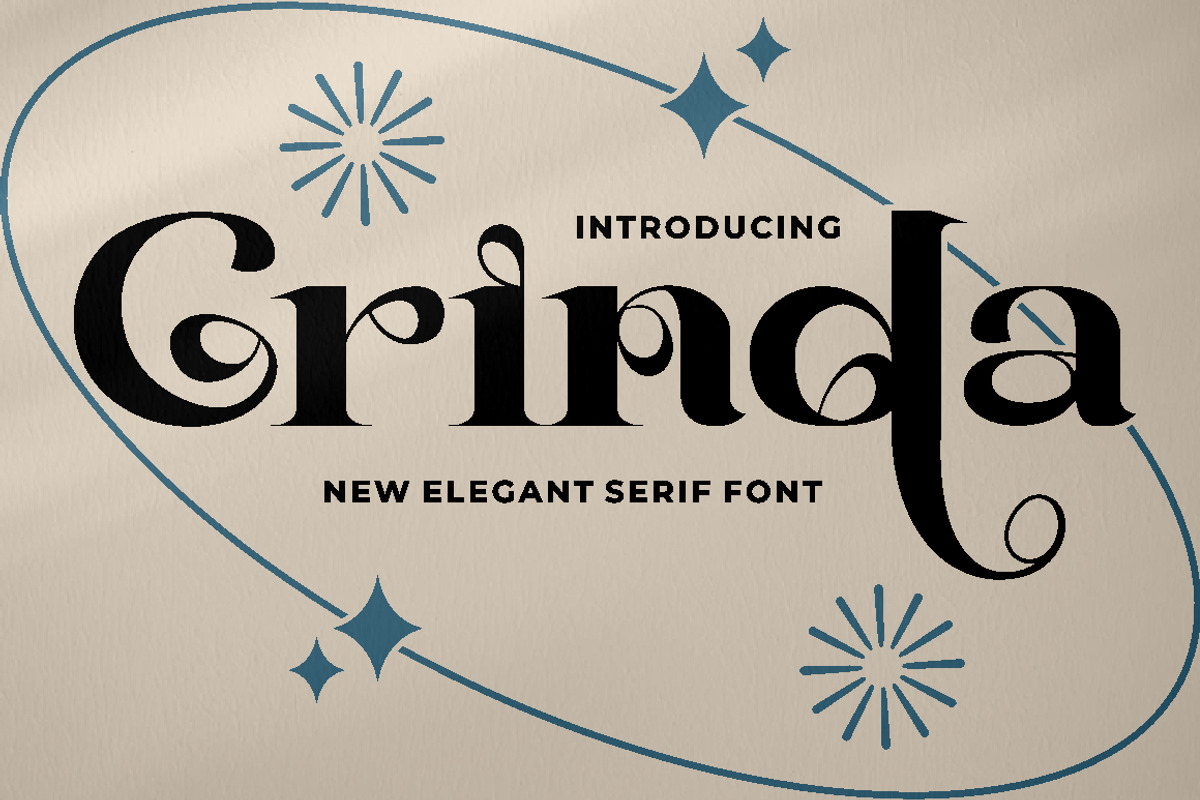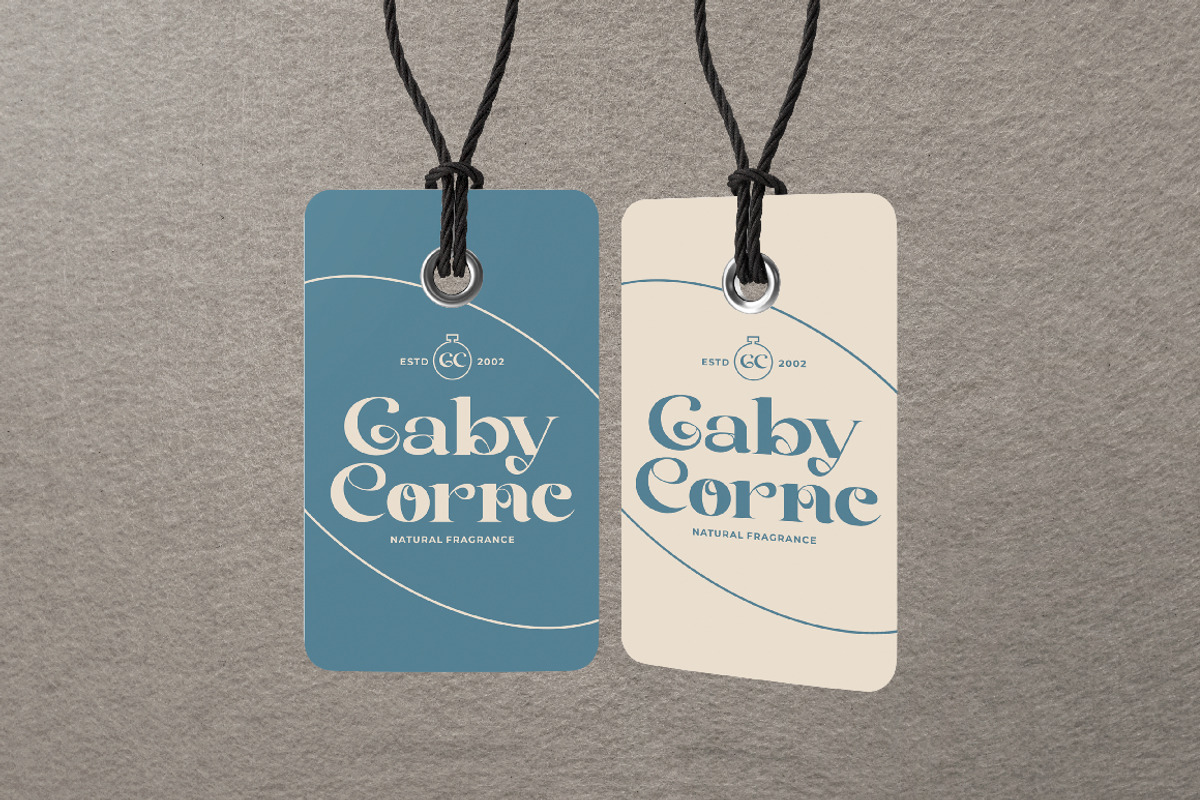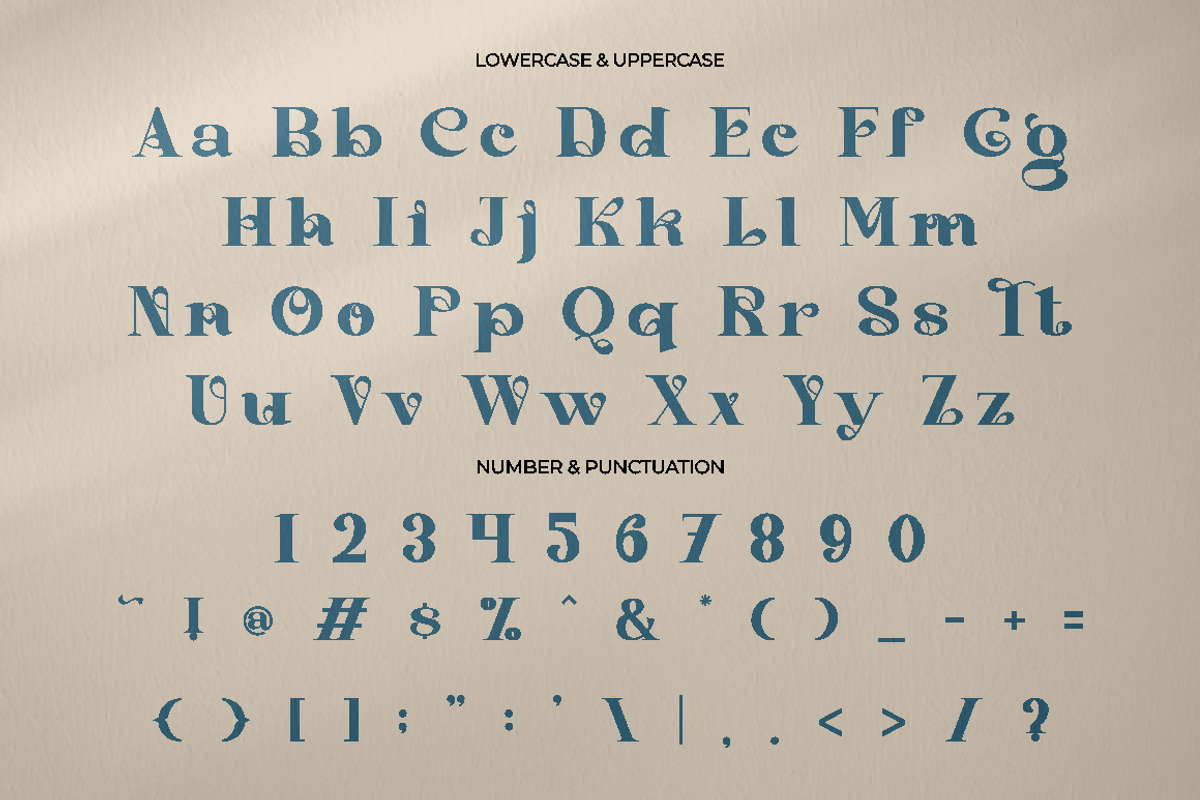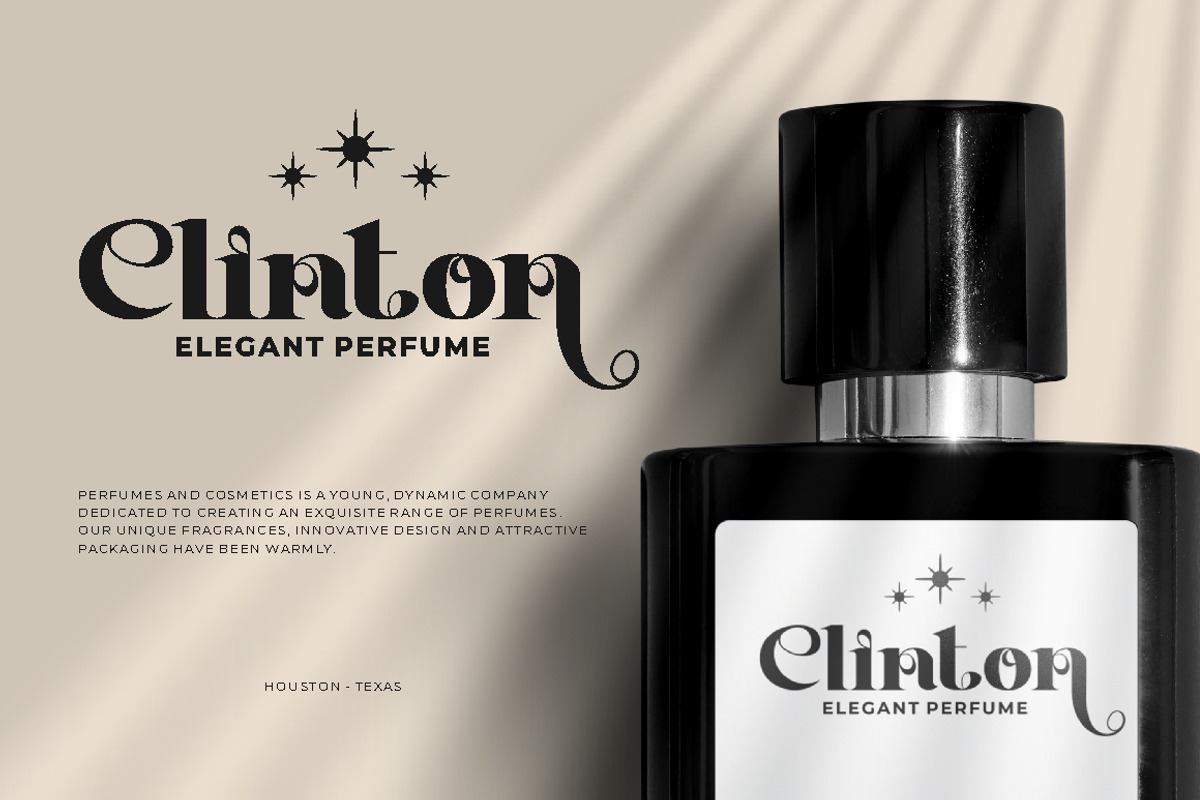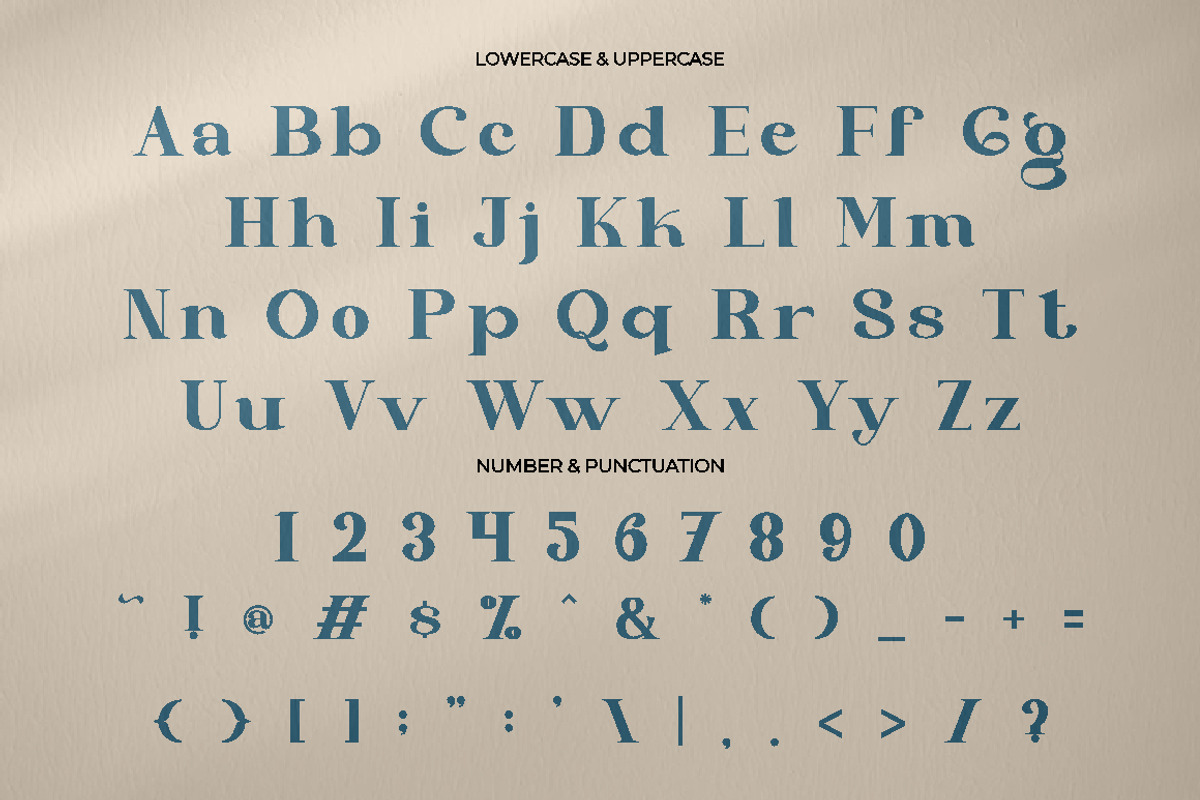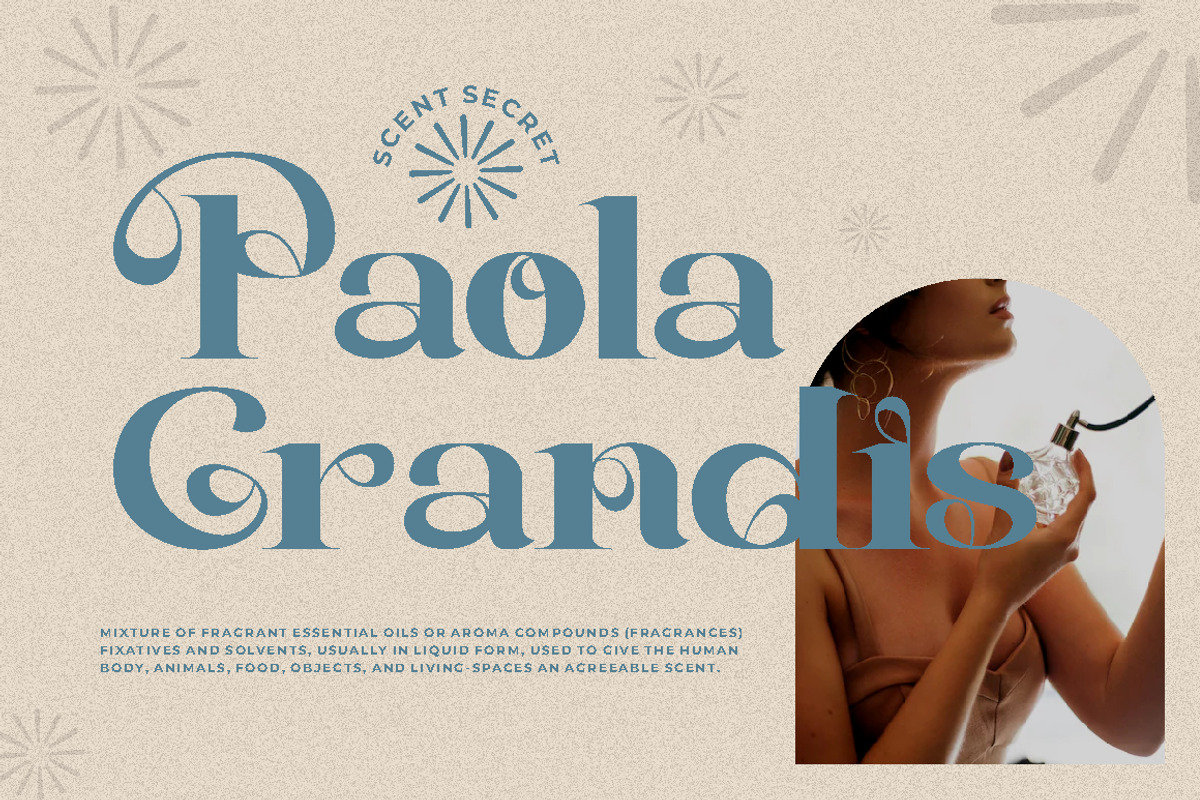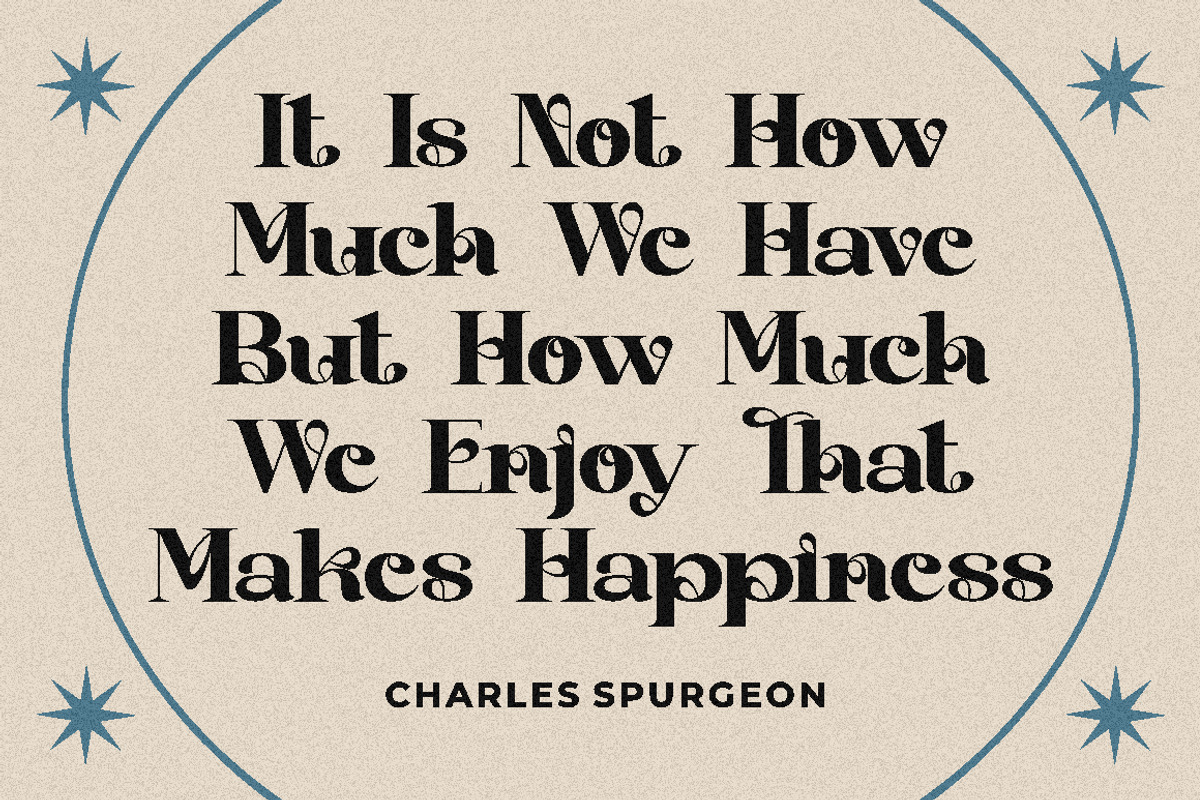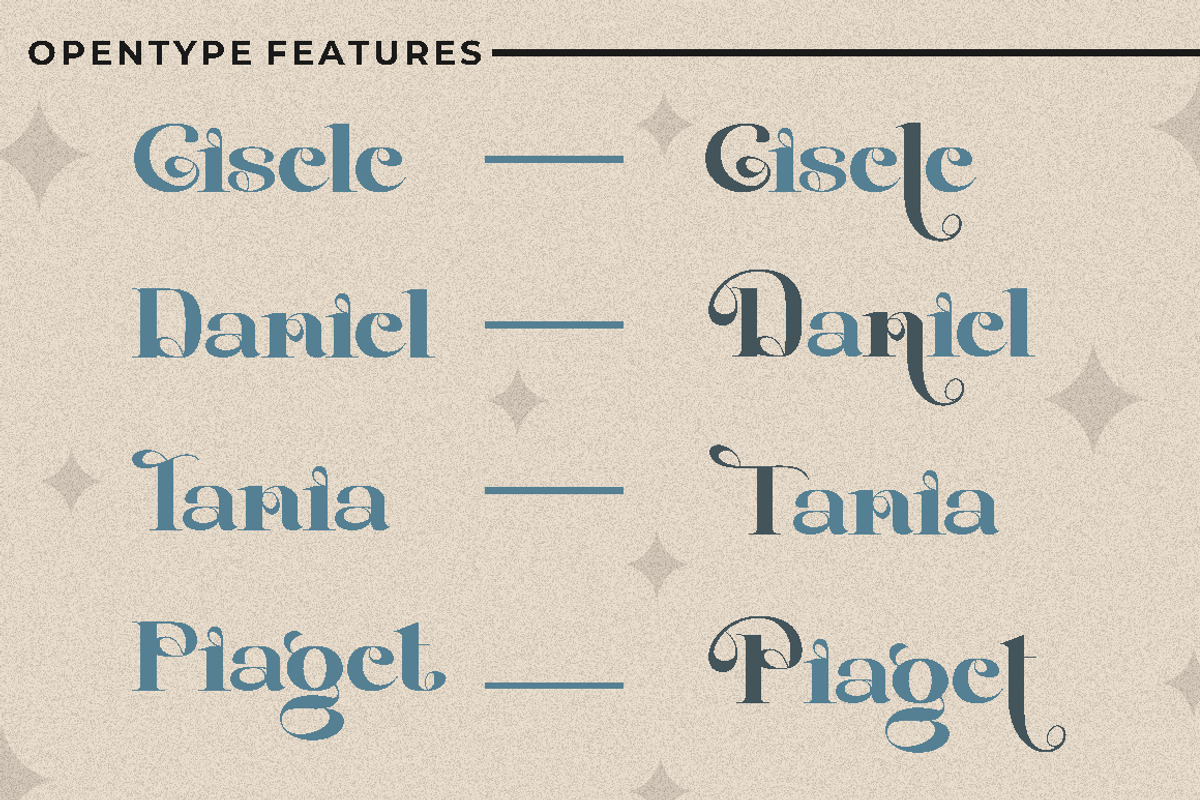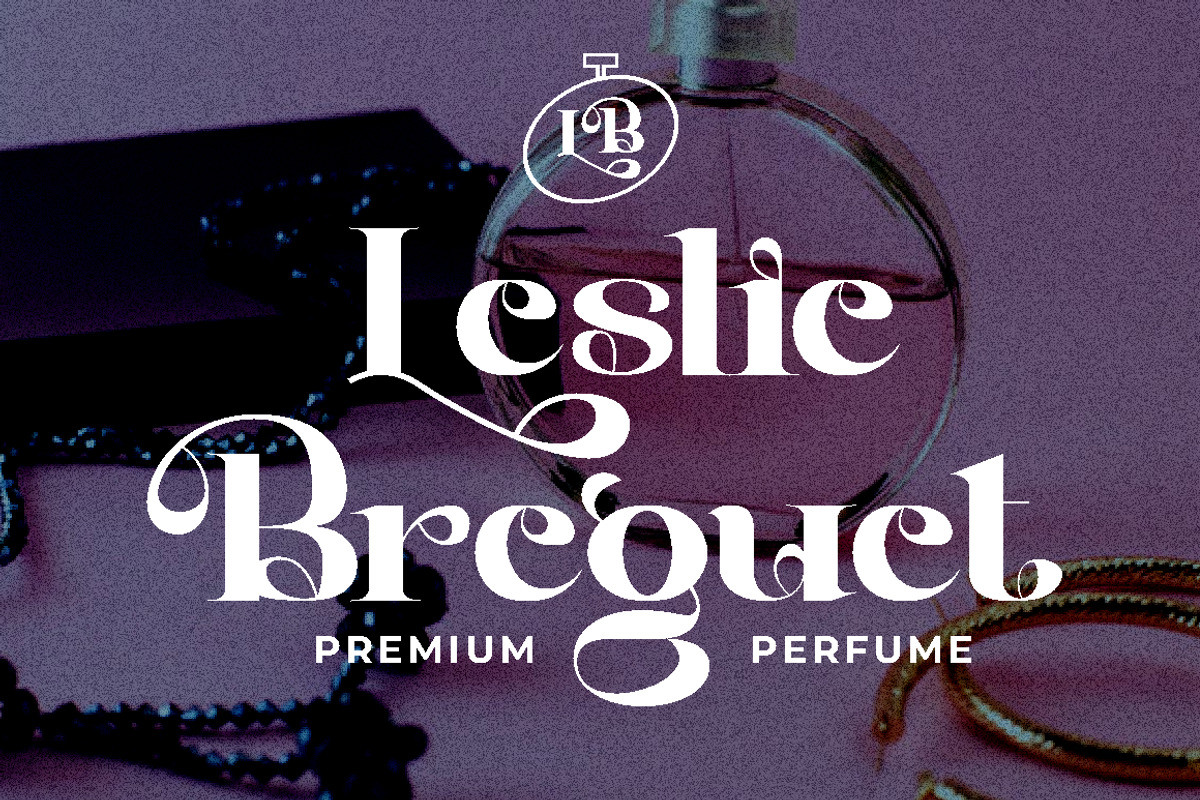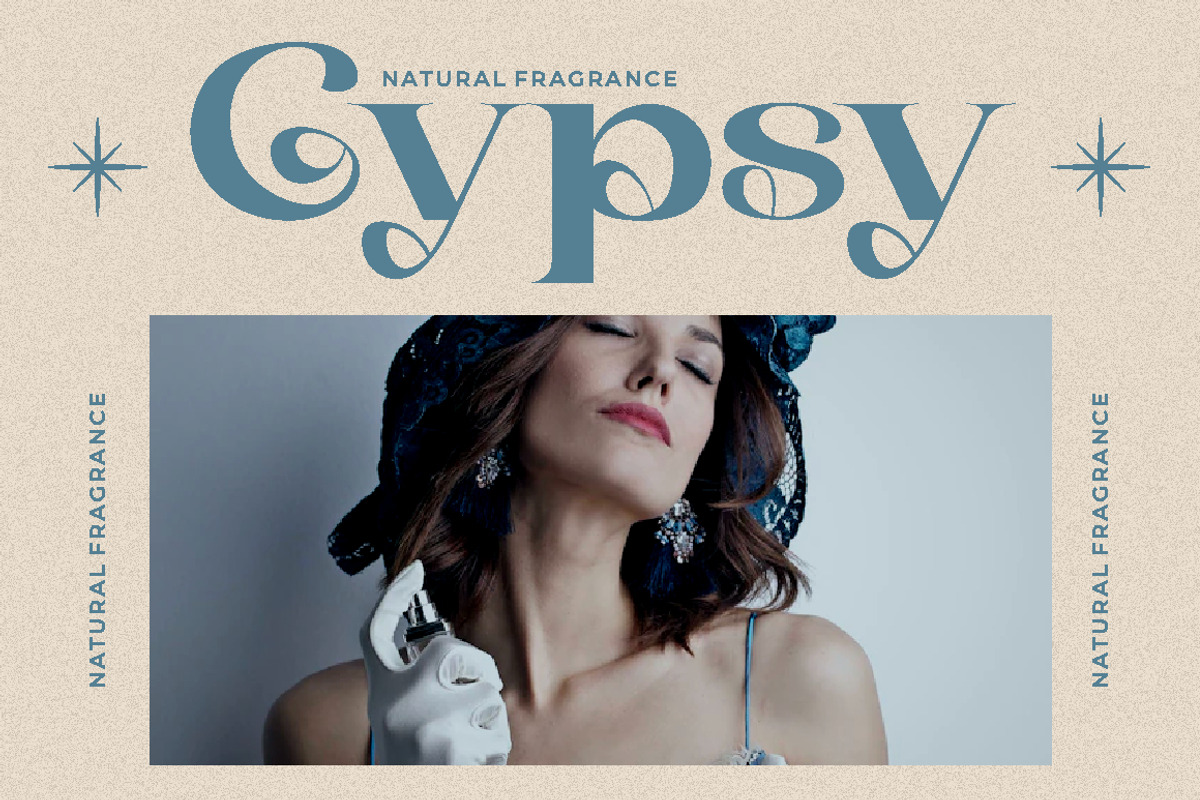
Grinda - Elegant Serif Font
Grinda - New Elegant Serif Font
Introducing a new elegant serif font called “ Grinda “. Inspired from luxury serif from the classic cover and we combine with elegant typeface style. With a alternate character, you can make great display combinations for lettering with a lot of options. Come with open type feature ( a lot of alternates and end swash), its help you to make great lettering. Grinda font is also support multi language. Grinda best uses for Logotype, heading,cover, poster, logos, quotes, product packaging, header, merchandise, social media & greeting cards and many more.
Comes with feature :
- Opentype (Alternates And Ligatures)
- Number, Punctuation And Symbols
- Multilanguage Support.